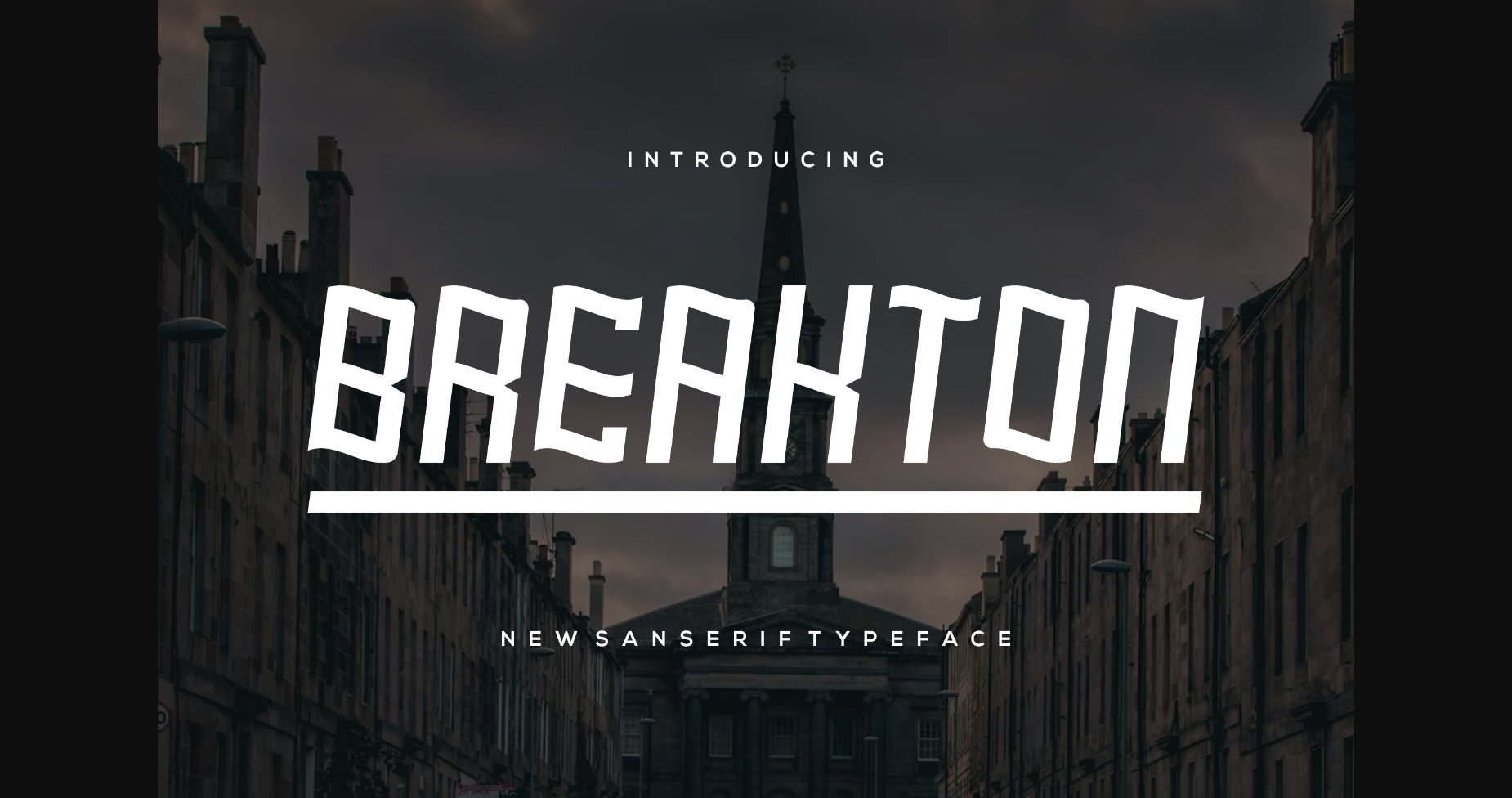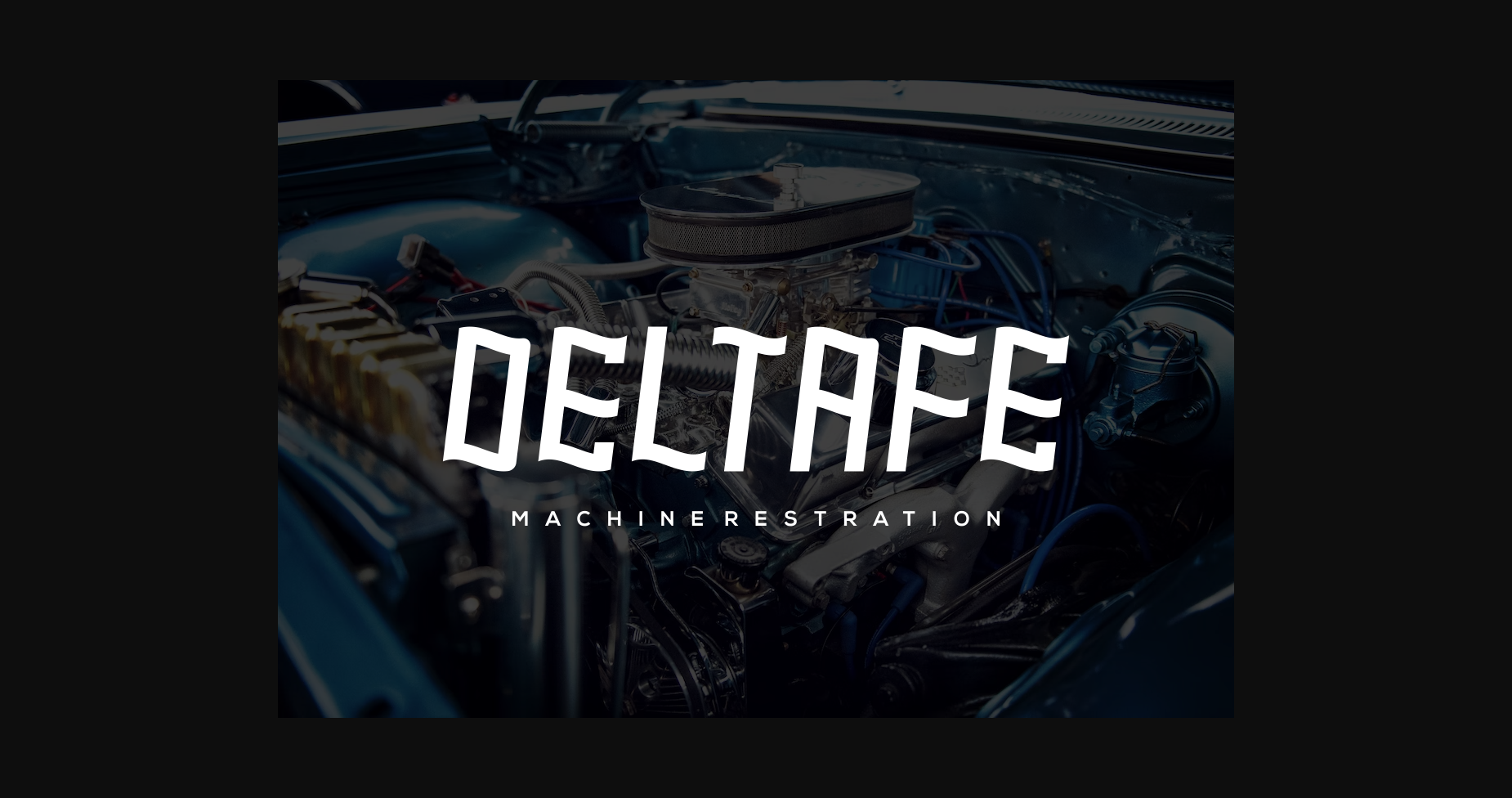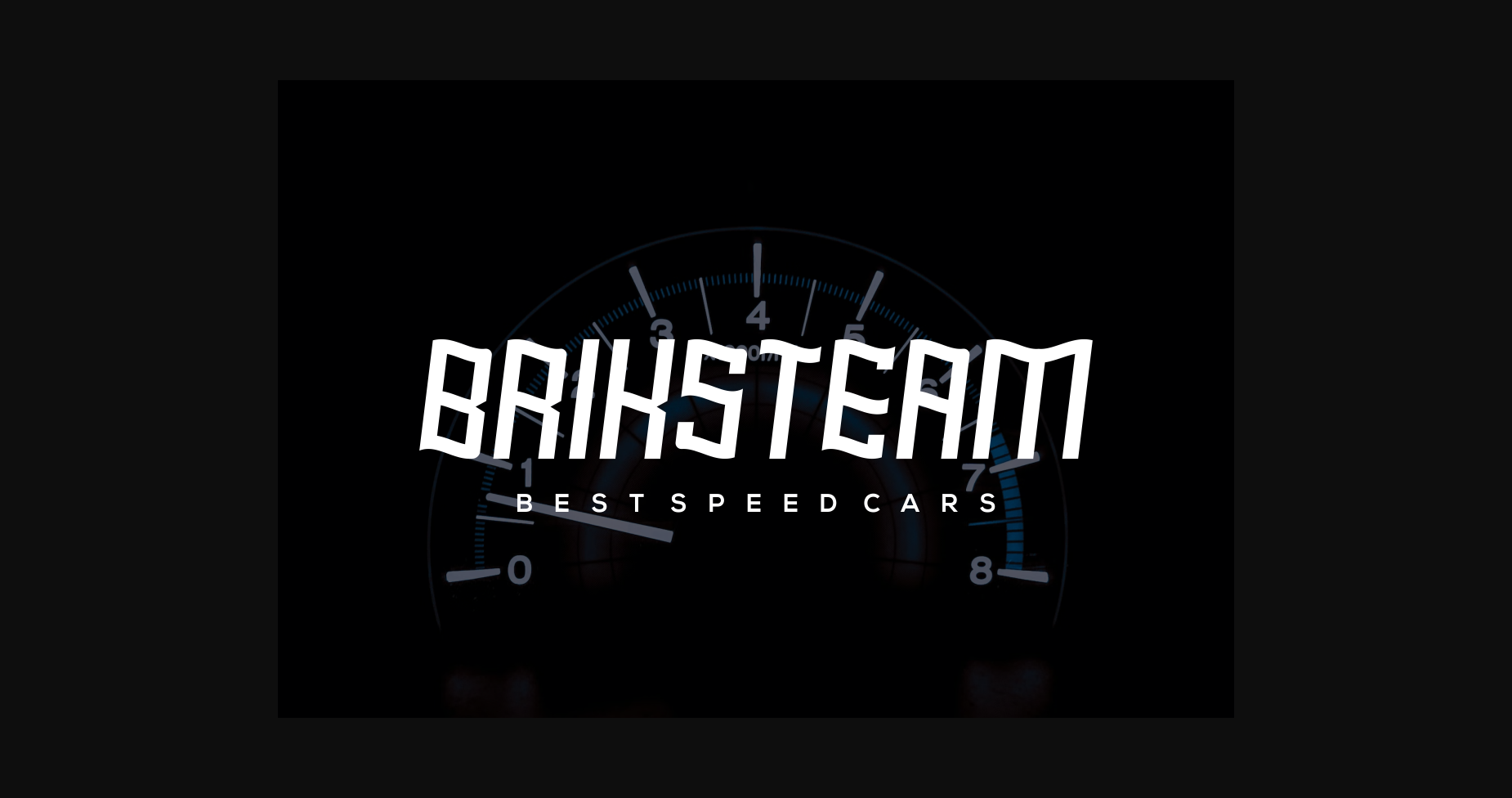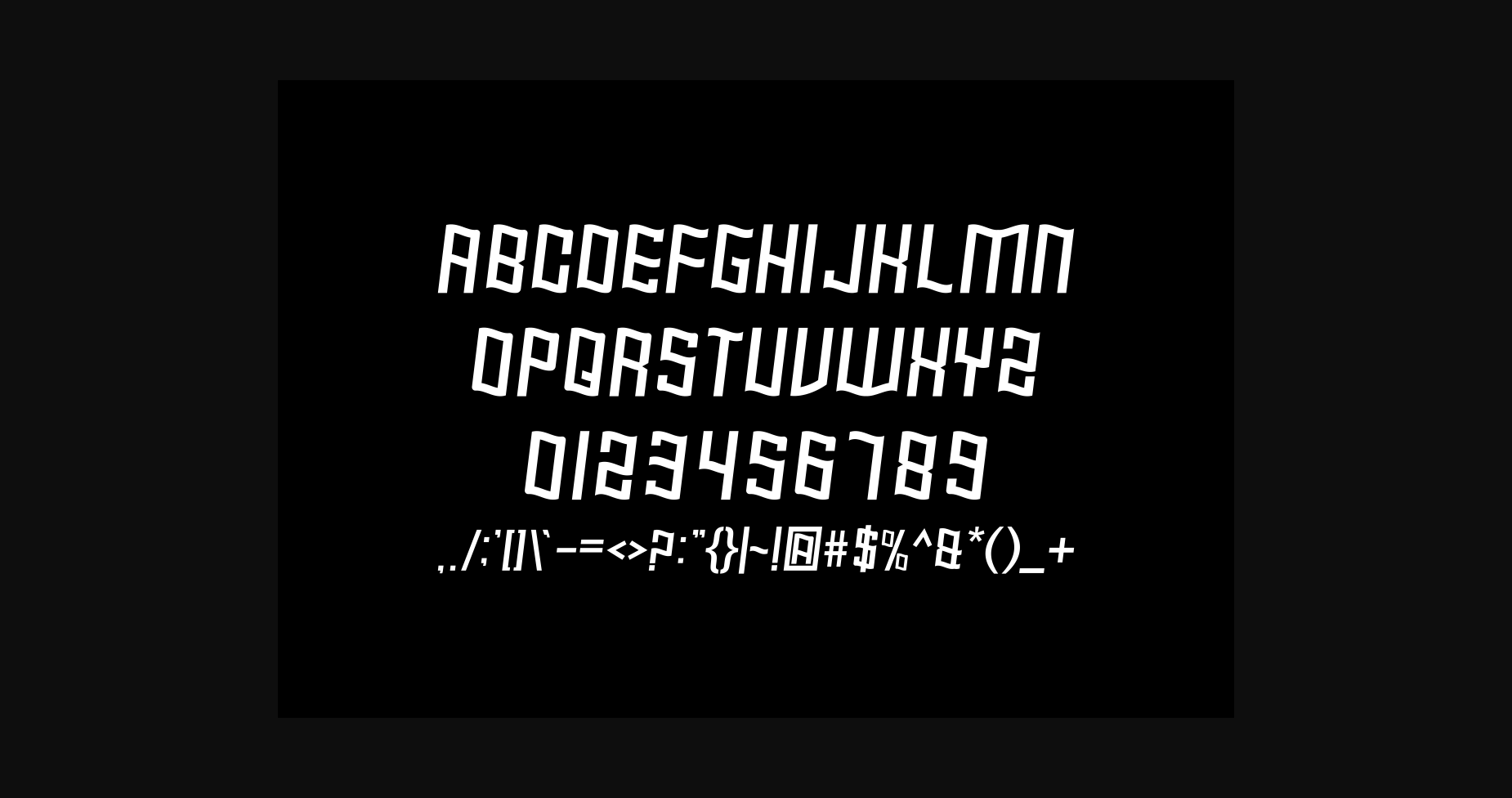
About Breakton Font
Introducing **Breakton Font** – Modern Font
**Breakton Font** – Modern Font is a bold and authentic display font. The font is suitable for any branding project like logo, t-shirt printing, esports, and many more. outstanding in a wide range of contexts.